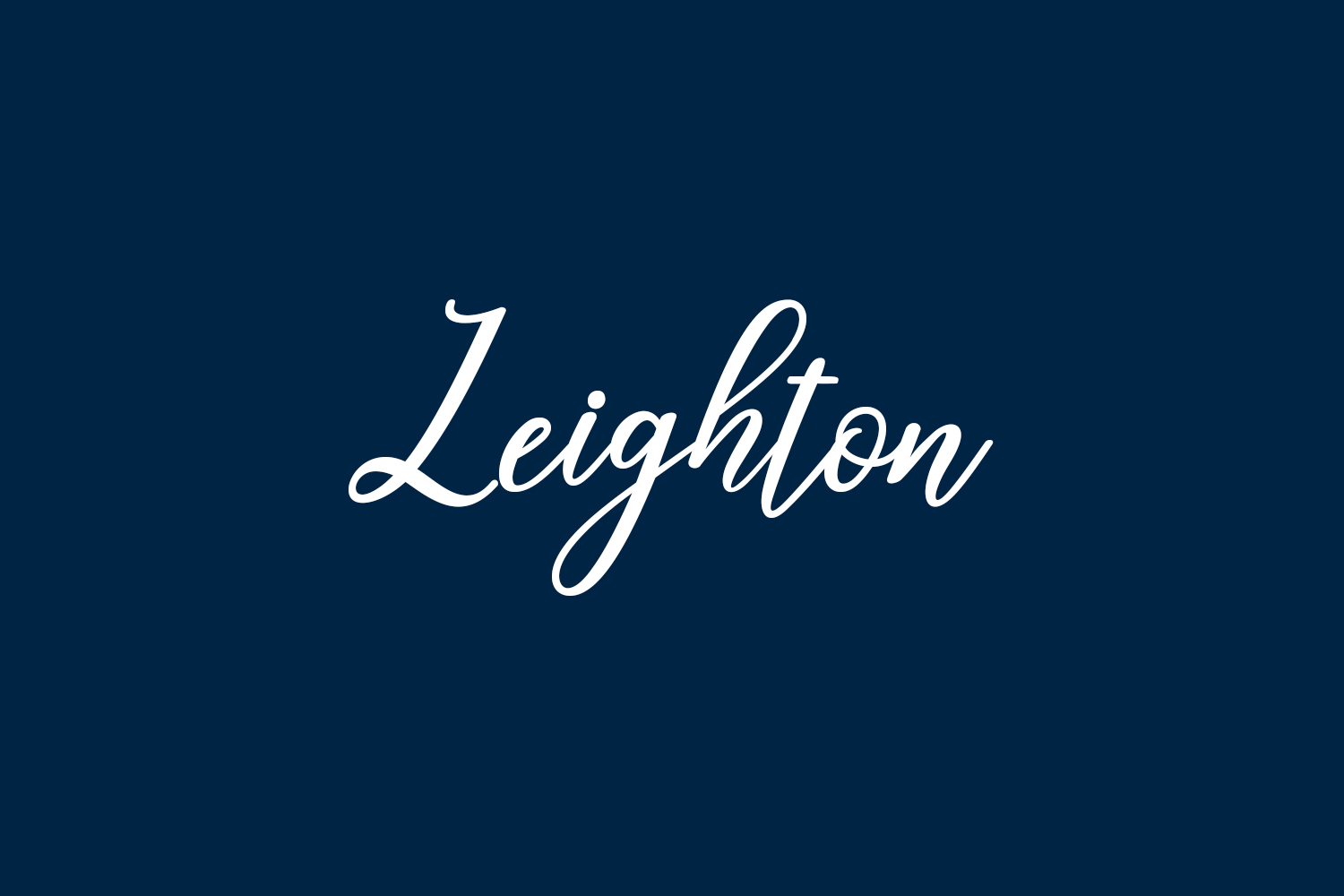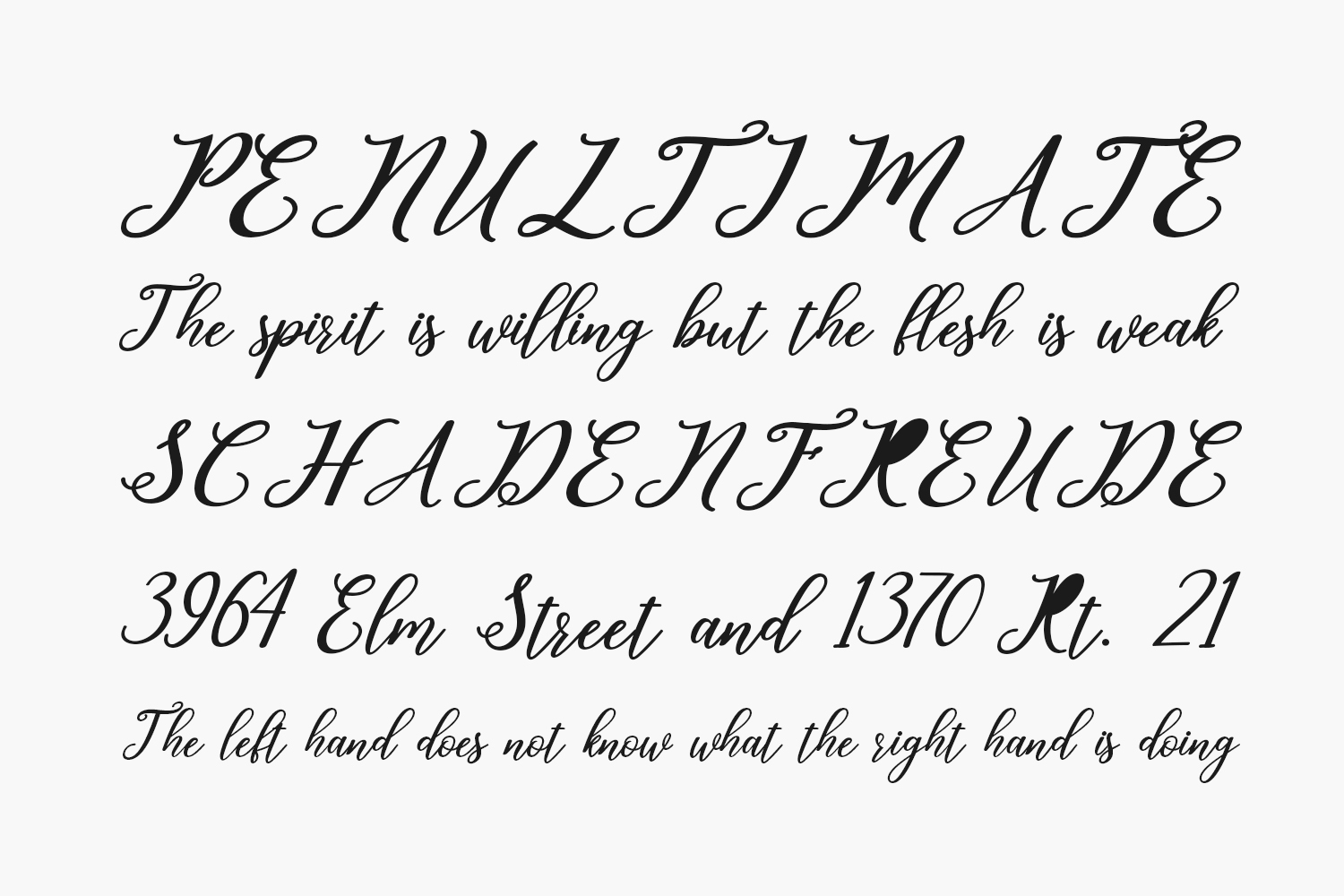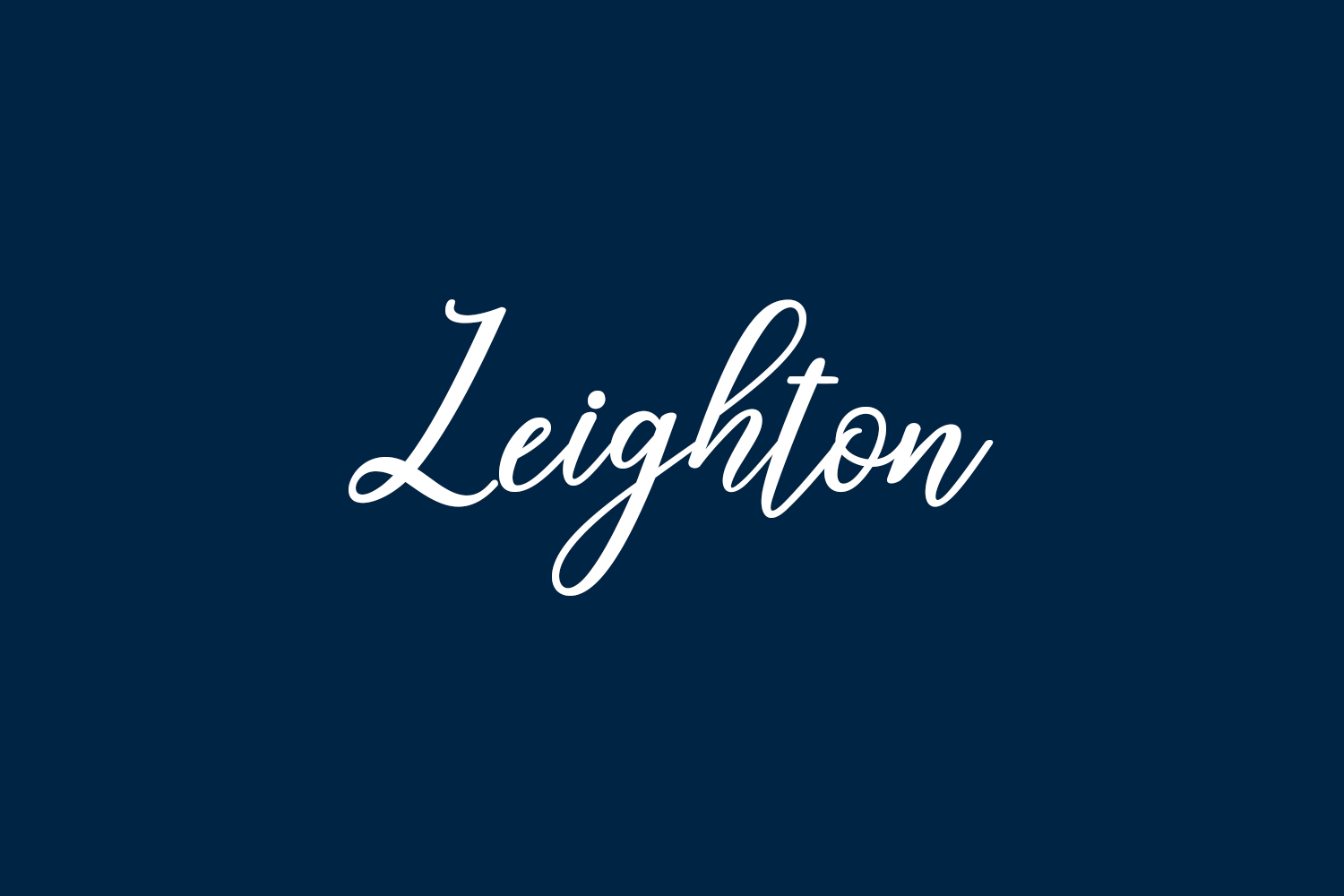
Leighton Free Font is a beautiful and elegant font with a distinctly modern and contemporary twist. It will add a touch of sophistication to any design idea. Leighton Free Font was designed by Amarlettering – Takiy and is free for personal use only. Please purchase the full version for commercial use.